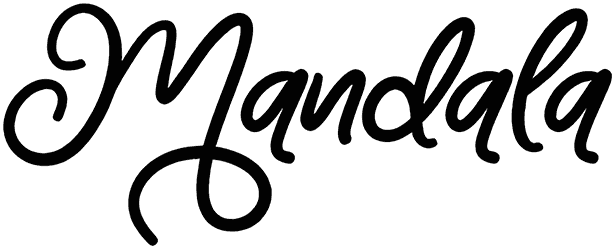
Mandala Font
With a cursive and eye-catching visual, your final draft will be unique, and this handwritten font has the potential to do it. A delicate and natural form of Mandala’s characters is going to add a charming vibe to your text. Set this postcard font on your new project, such as a Thanksgiving invitation card, and make it more impressive.